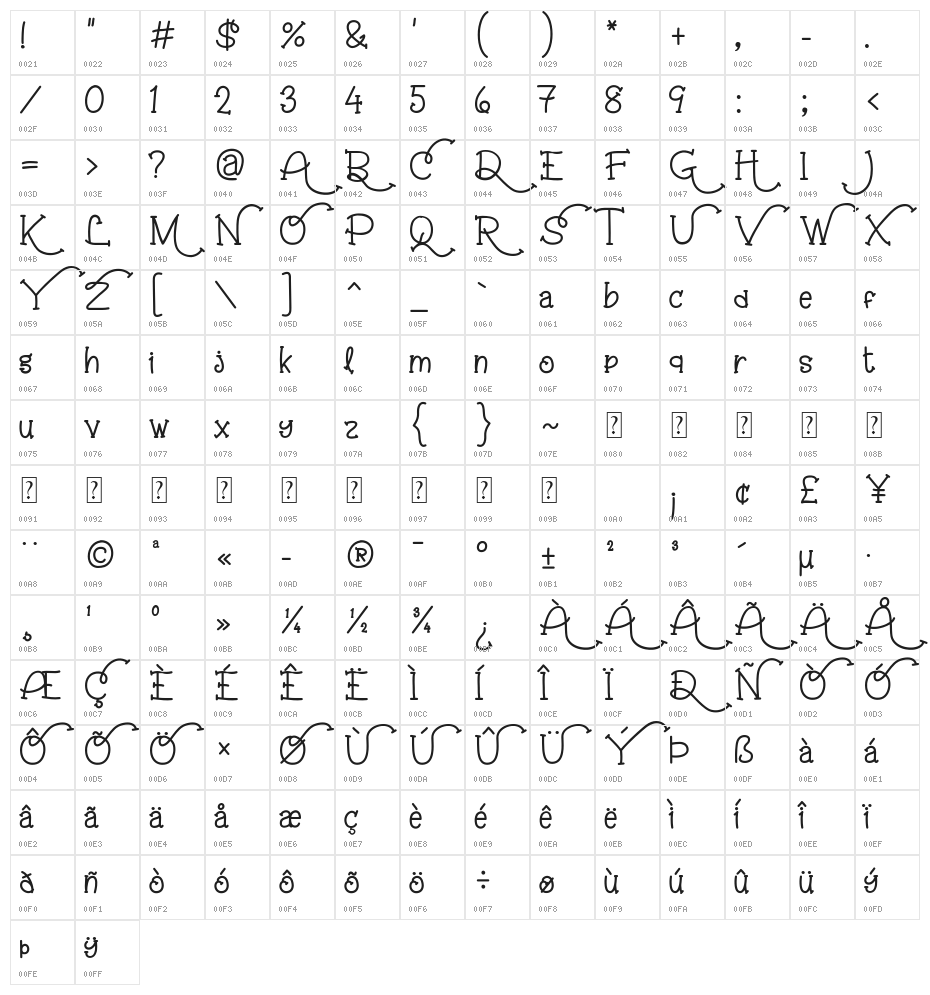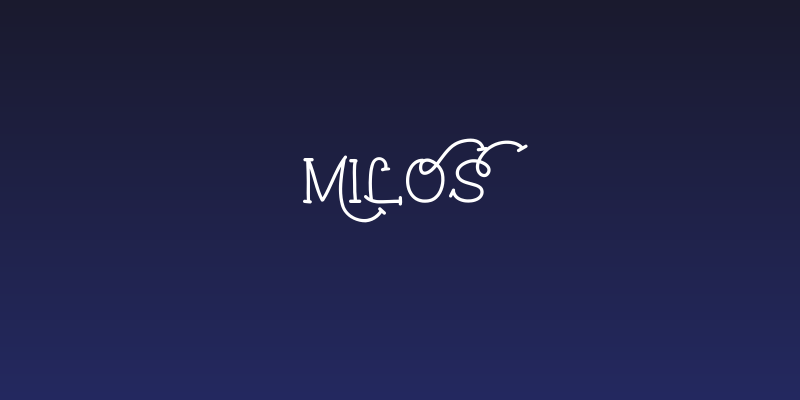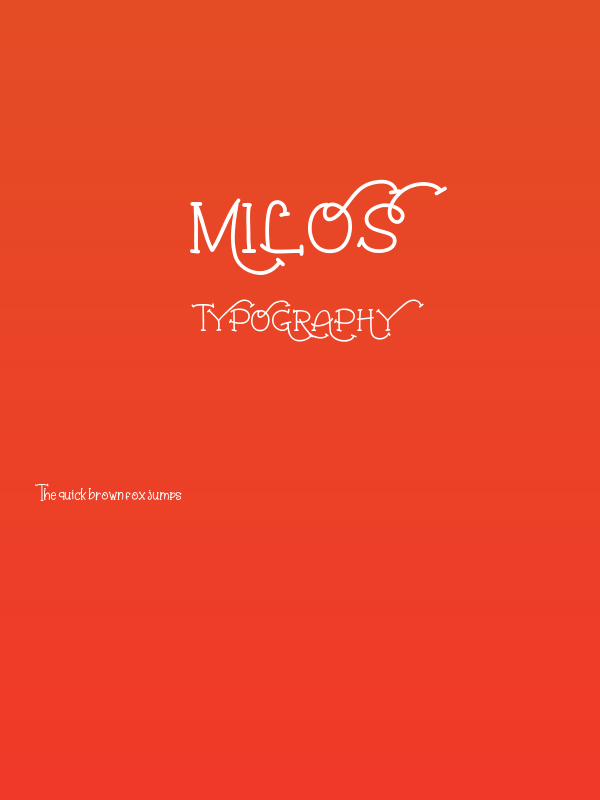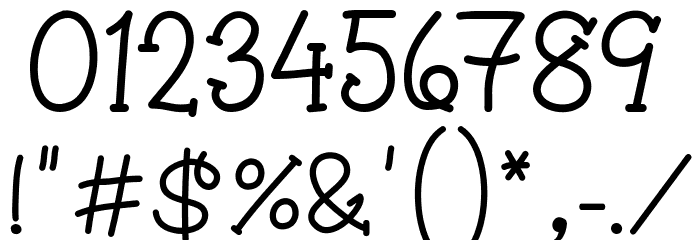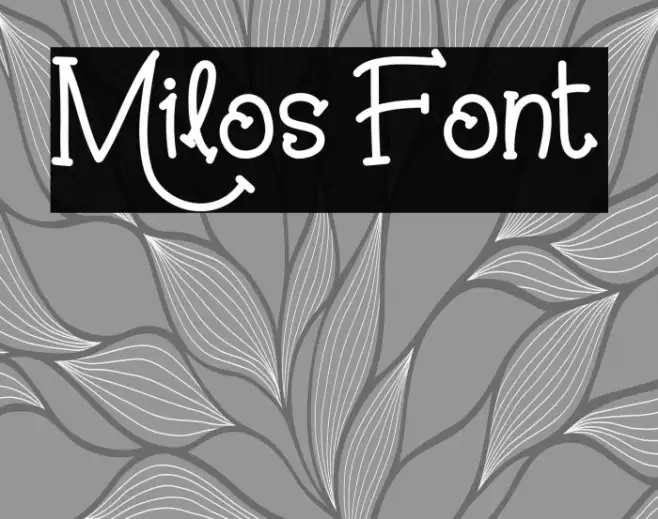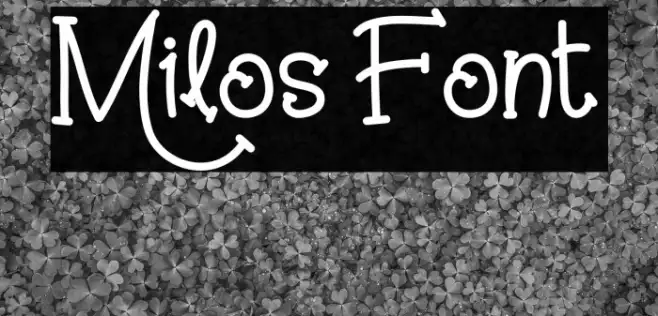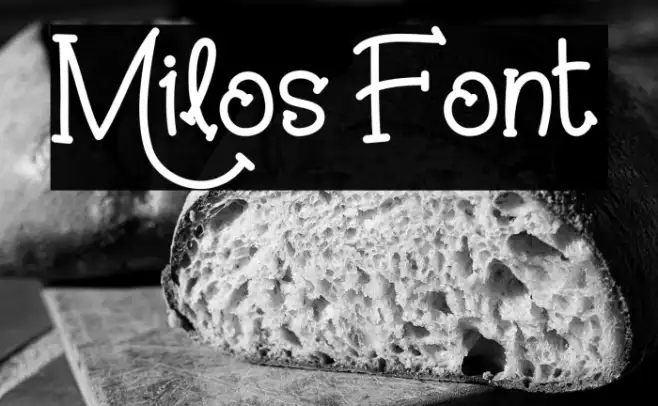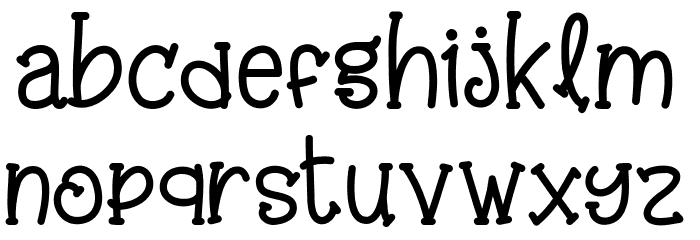
Milos Font
Milos Description
This font features a playful and whimsical design, characterized by its unique blend of script and decorative elements. The uppercase letters are adorned with elegant swashes and curls, giving them a dynamic and lively appearance. The lowercase letters maintain a more casual and approachable style, with rounded edges and a slightly irregular baseline that adds to the font's charm. The numerals are bold and clear, ensuring readability while maintaining the overall playful aesthetic. Special characters are creatively designed, incorporating the same whimsical elements seen throughout the alphabet. This font is perfect for projects that require a touch of fun and creativity.
| Overall Style | Playful, Whimsical, Decorative |